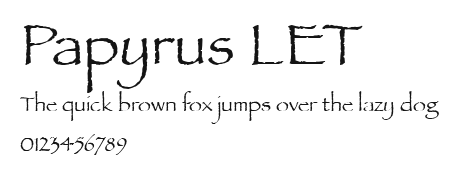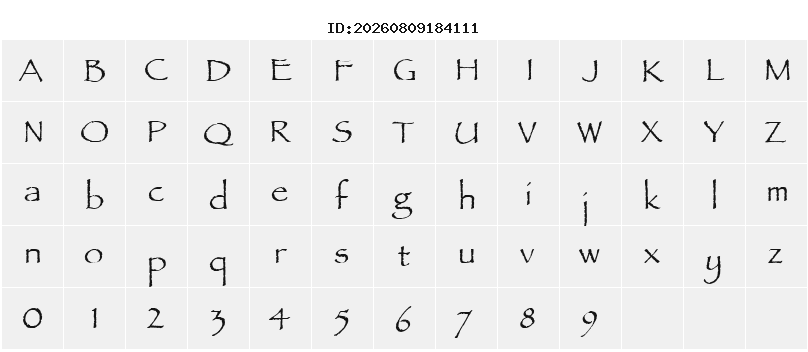
Papyrus LET Preview
• Font Name: Papyrus LET
About Papyrus LET.ttf
Papyrus LET.ttf is a modern, elegant sans-serif font designed for ultimate readability and visual harmony. Perfect for branding, headlines, web design, and print materials.